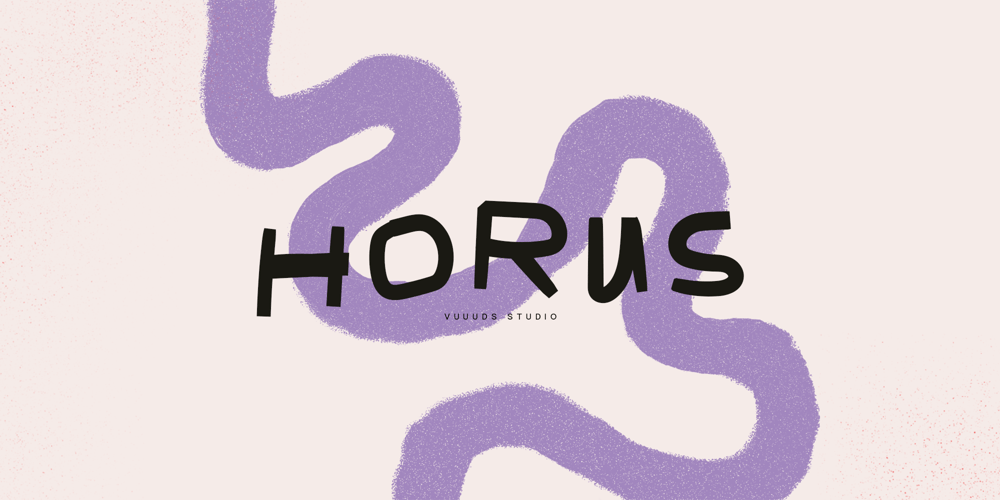
Horus Font Family was designed by Agung Syaifudin and published by vuuuds. Horus contains 1 styles and family package options. Introducing Horus Font!Horus is casual handwriting font, every single letters have been uniquely crafted.This font including beautiful alternate glyph. You can access the alternate glyph via Font Book (Mac user) or Windows Character Map (Windows user), I’ve been put the link tutorial inside the zip file.Foreign languages support: ÀÁÂÃÄÅÆÇÈÉÊËÌÍÎÏÐÑÒÓÔÕÖØÙÚÛÜÝàáâãäåæçèéêëìíîïðñòóôõöøùúûüýÿ߀£¥ŒŠŸ¢œšž©®™Thanks for looking.—instagram.com/vuuuds.studio